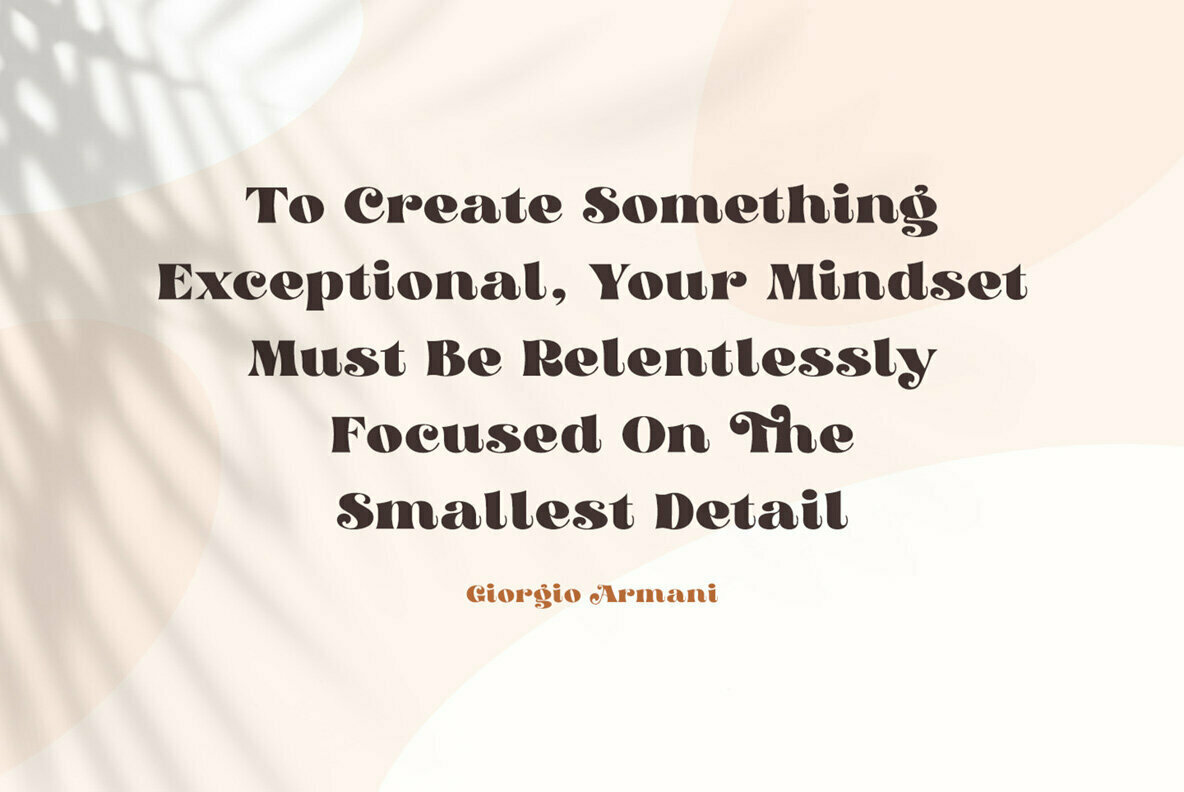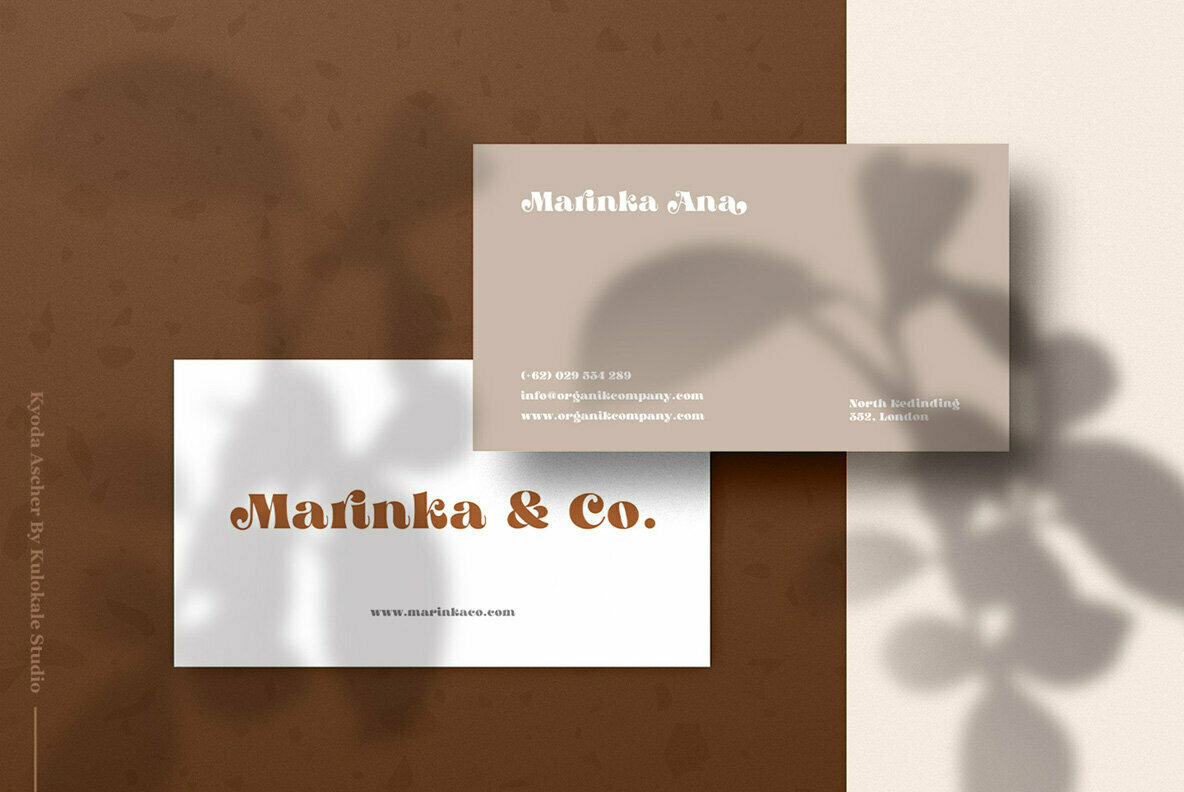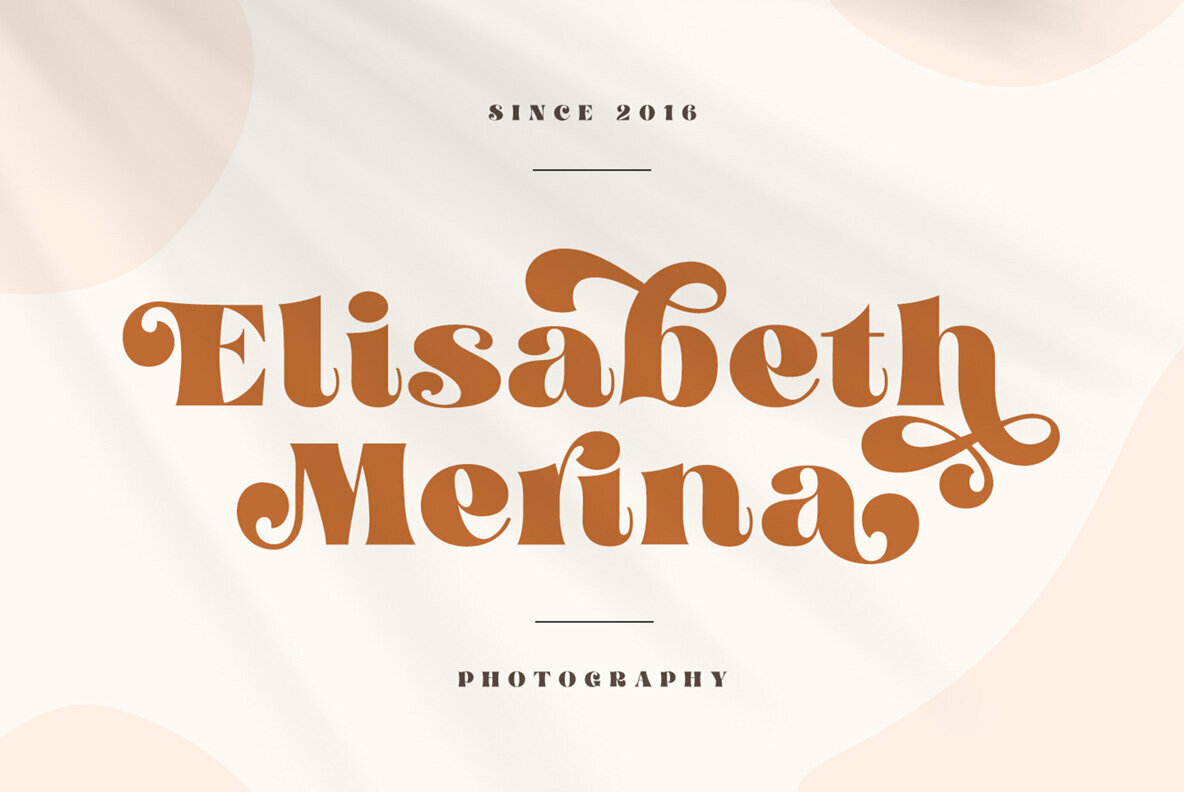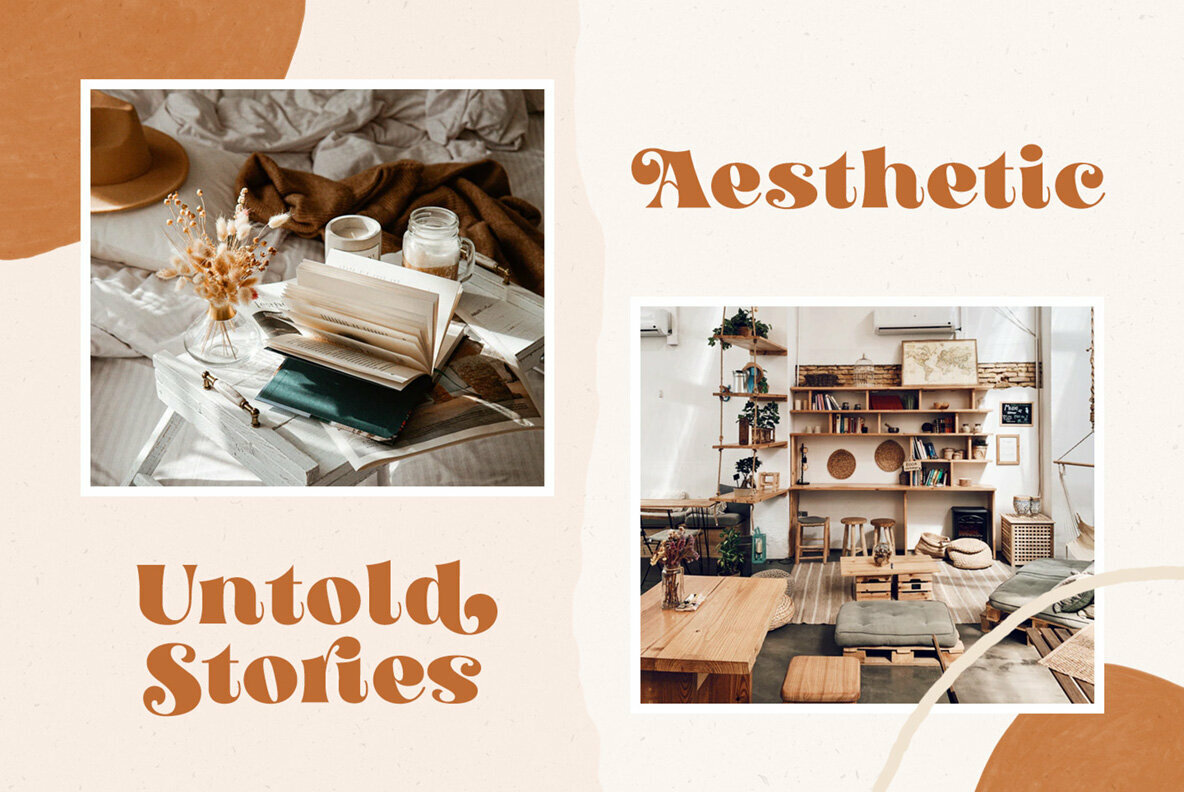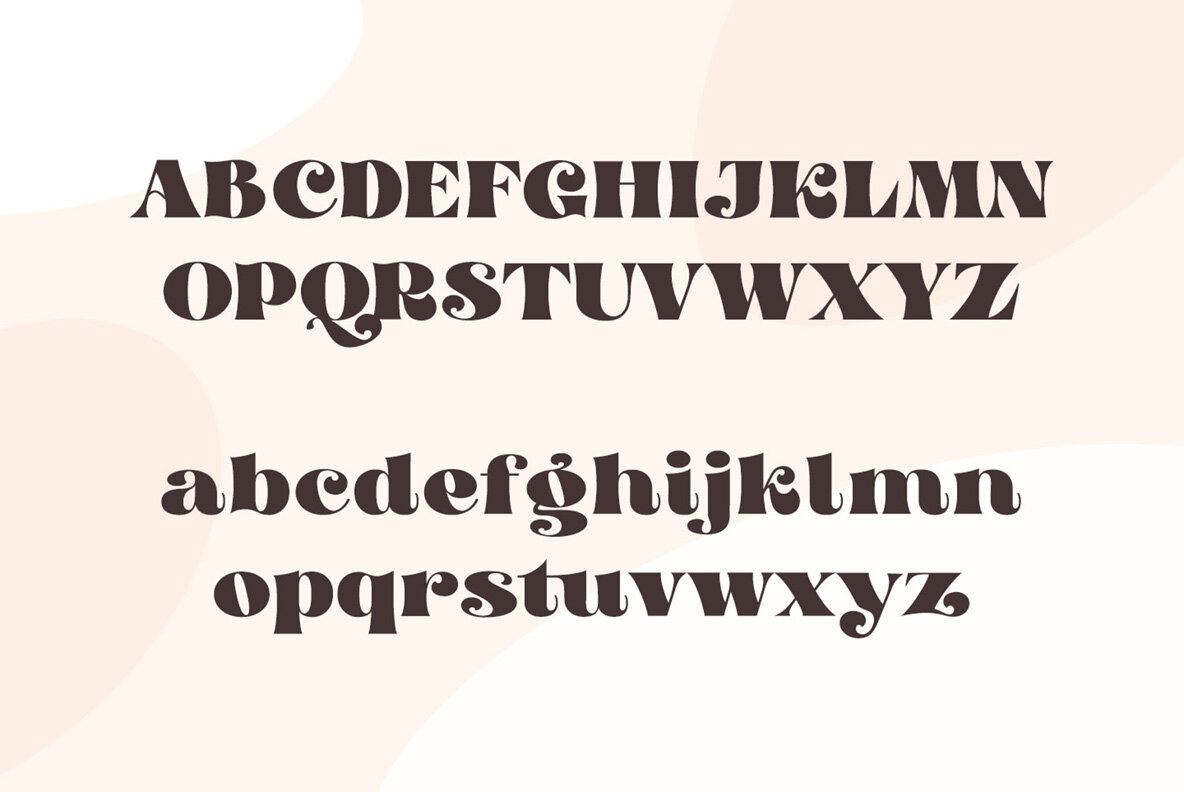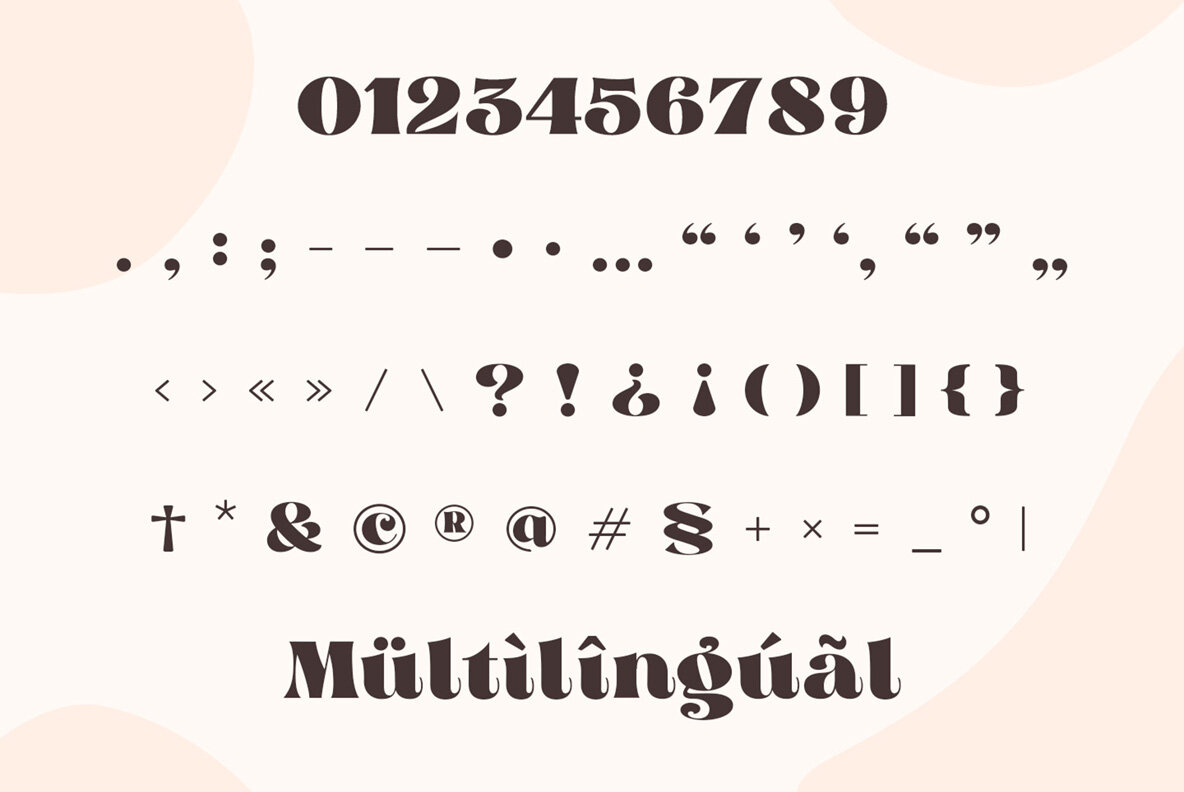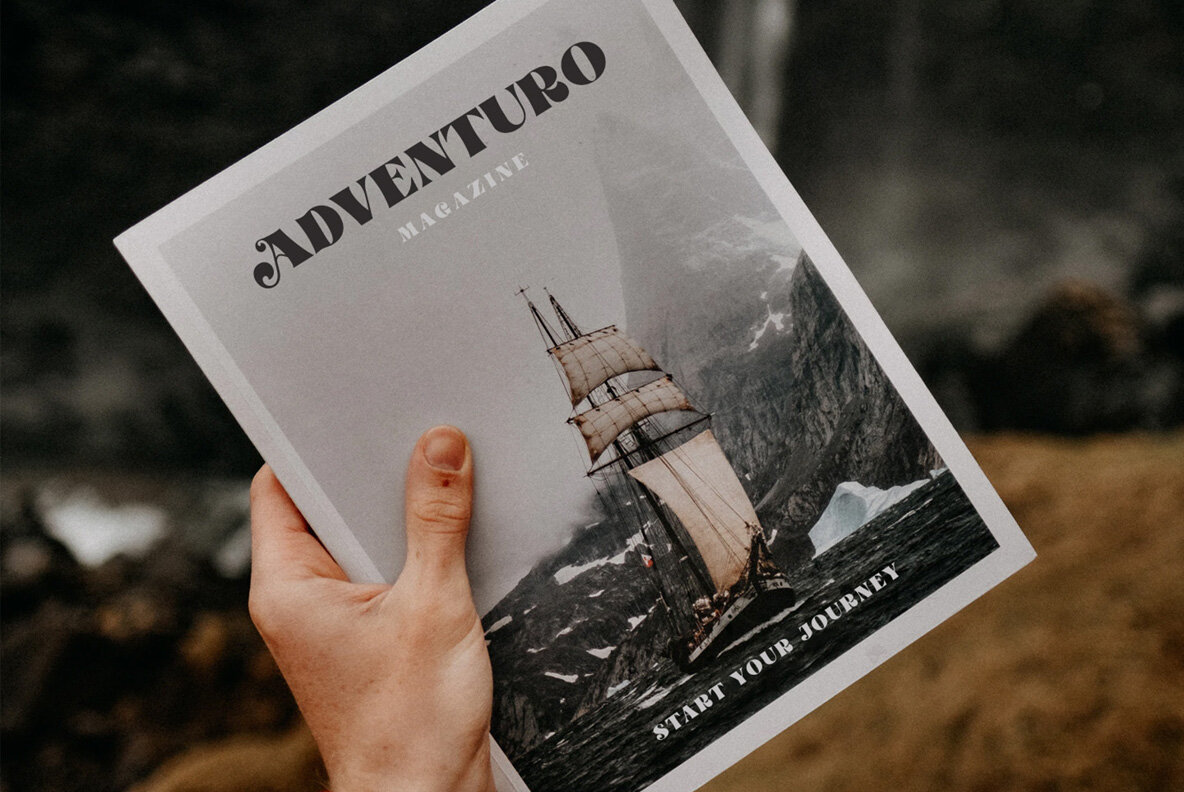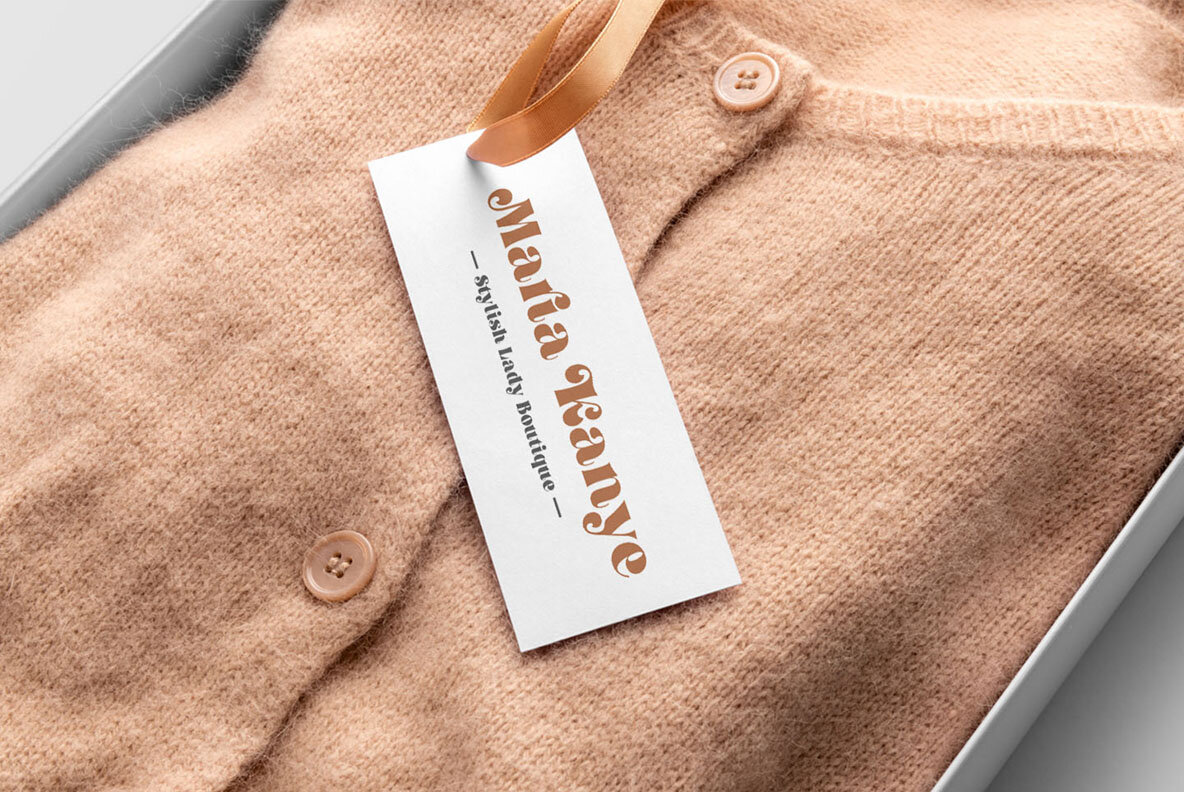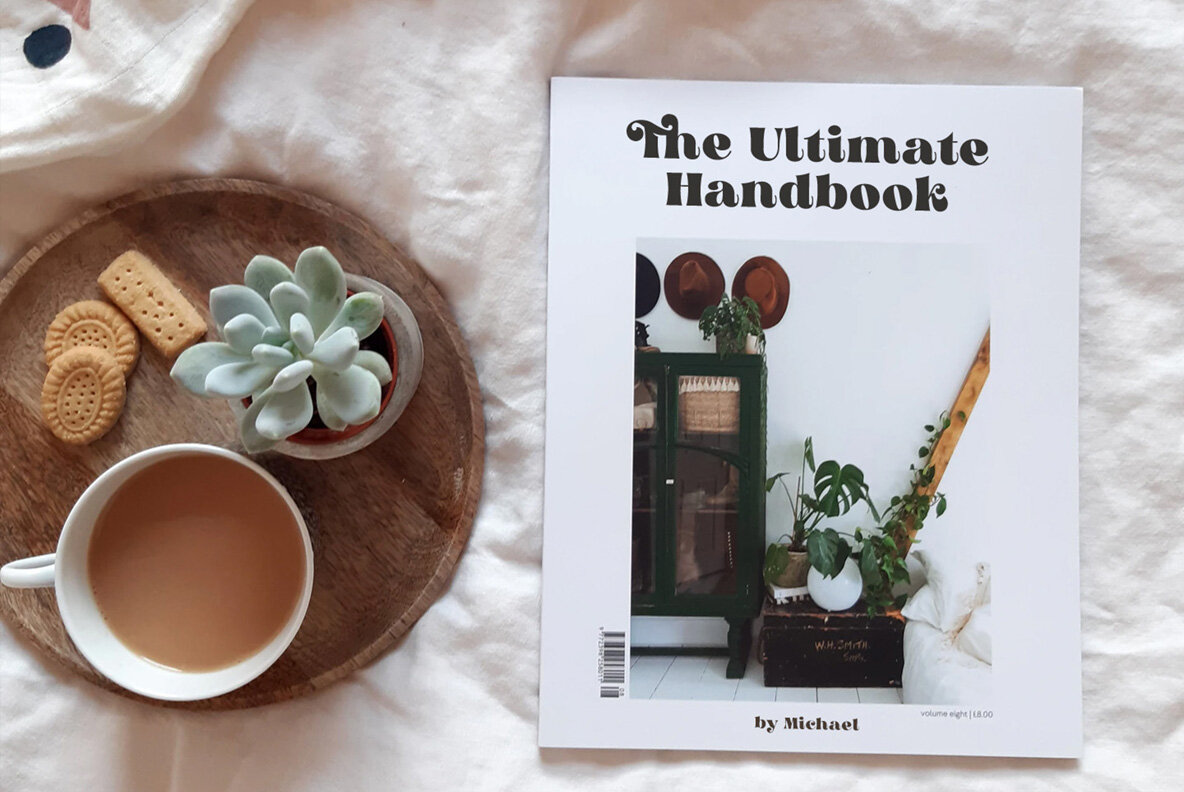
Kyoda Ascher Font
Thanks for checking out Kyoda Ascher Font! Modern serif font with beautiful alternate characters and also ligature, which makes it easy for you to create a logo for your branding and your business.
Kyoda Ascher is perfect for many different projects such as logos & branding, invitation, stationery, wedding designs, social media posts, advertisements, printed quotes, product packaging, product designs, label, photography, watermark, special events, or anything.